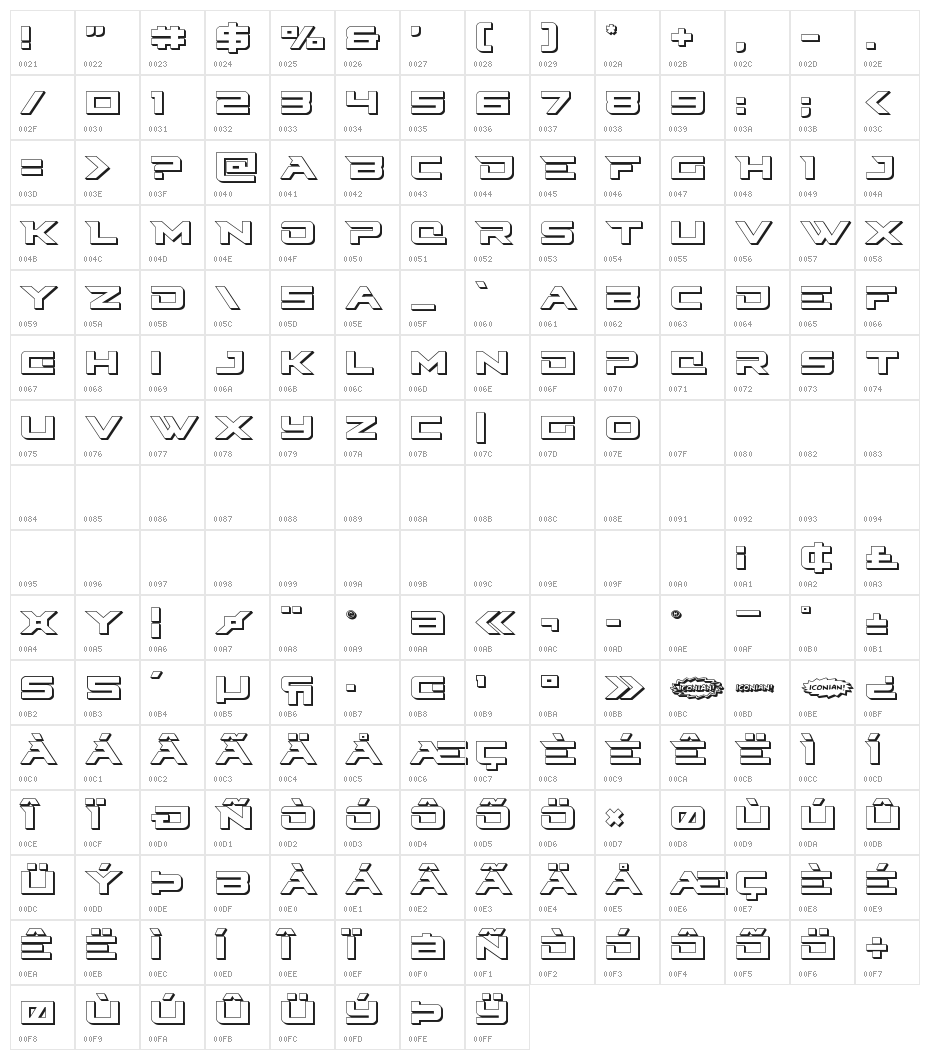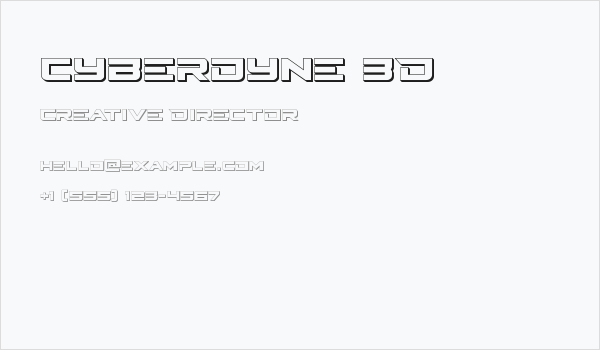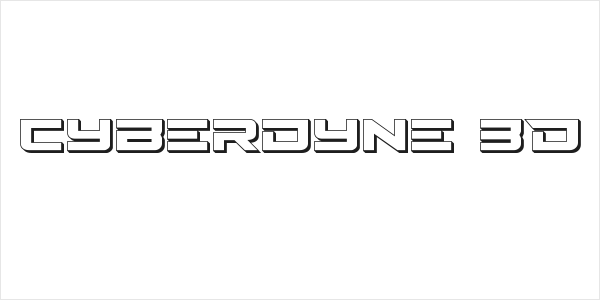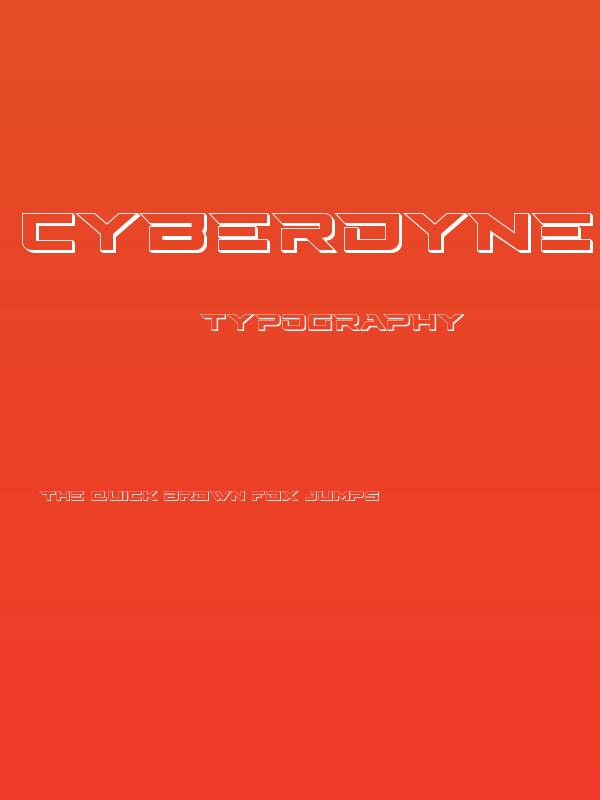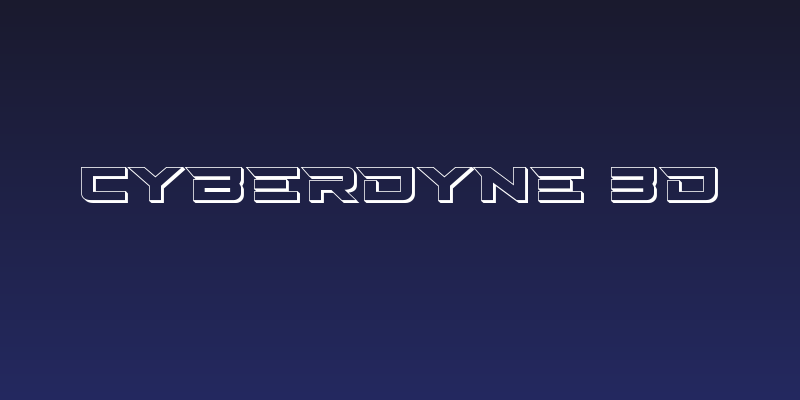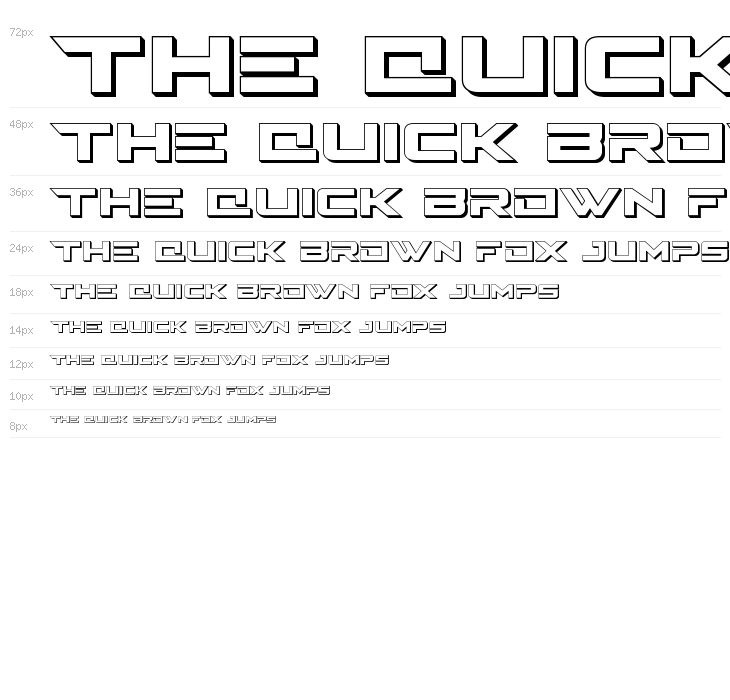
Cyberdyne 3D Font
Cyberdyne 3D Description
This font features a futuristic and geometric design, characterized by its three-dimensional appearance. The letters are bold and angular, with a distinct block-like structure that gives them a strong and impactful presence. The font's design incorporates sharp edges and a consistent line thickness, creating a uniform and cohesive look. Its unique style is reminiscent of digital or technological themes, making it suitable for projects that require a modern and innovative aesthetic. The characters are evenly spaced, ensuring readability while maintaining the font's distinctive style.
| Proposed Projects | Ideal for technology branding, sci-fi posters, video game titles, and digital media. |